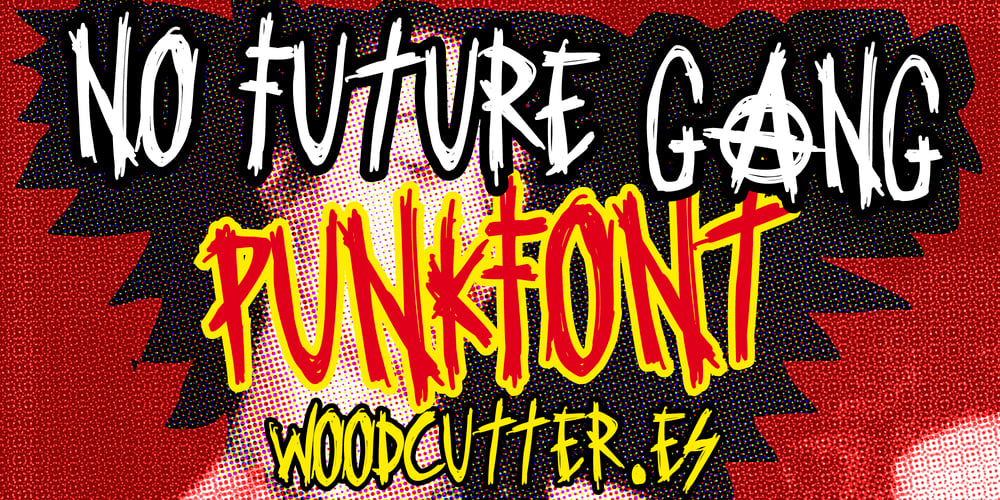
No Future Gang
No Future Gang font
No Future Gang Font Family was designed by Jordi Manero and published by Woodcutter. No Future Gang contains 1 styles and family package options. “No Future Gang” is a punk-style font with hand-scribbled letters, capturing the rebellious and anarchic essence of the movement. Its distorted uppercase letters convey a sense of urgency and chaos, ideal for projects seeking a raw and authentic approach. Perfect for concert posters, album covers, and any design needing a bold and anti-establishment statement, this font adds a touch of chaotic and subversive energy to your compositions.